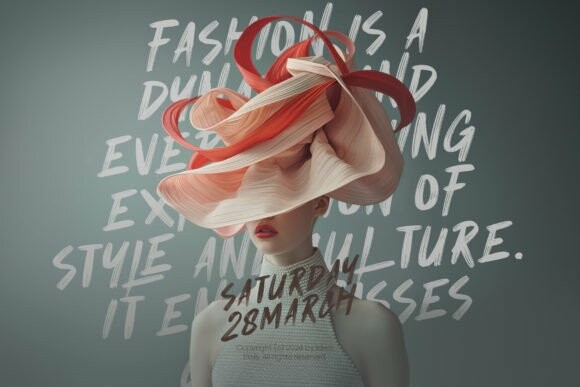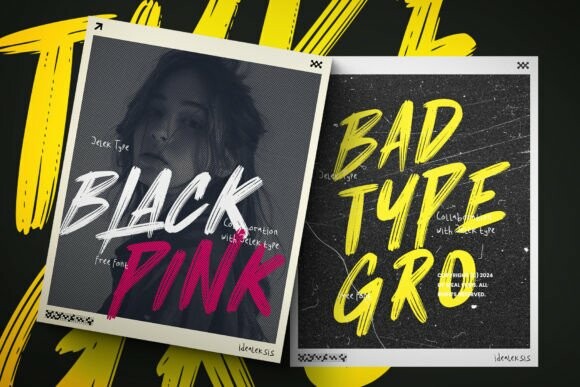
Grain Hungry Font
Grain Hungry Font, the captivating style and textural flair of a unique brush font. This handwritten wonder is ideal for designs that require a personal touch and authentic feel. With its unique texture, this display font breathes life into your graphic creations, making it an irresistible choice for posters, elevating them to eye-catching works of art.